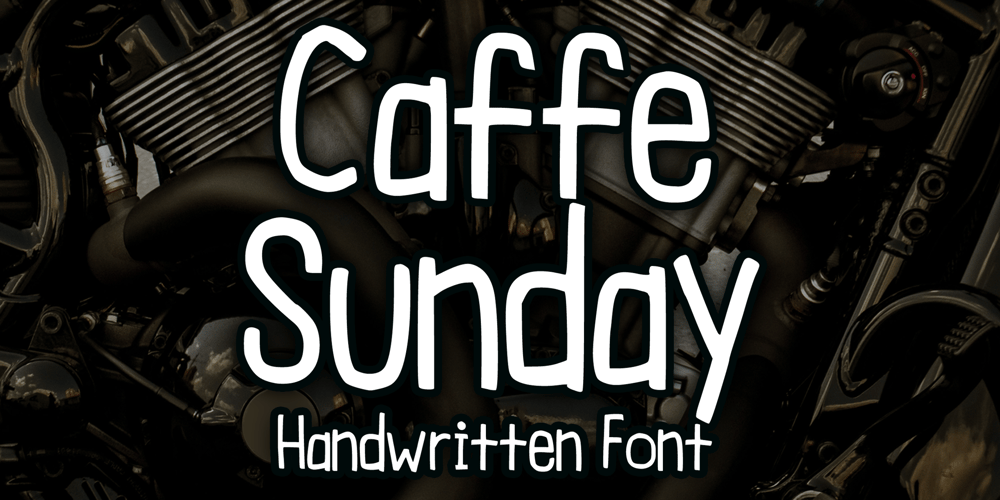
Caffe Sunday Font Family was designed by Gabriel Valentinus and published by Mvmet. Caffe Sunday contains 1 styles and family package options. Caffe Sunday is a casual and playful blackletter font. You can use it for anything ranging from t-shirts, book designs, and greeting cards to stickers and posters, packaging designs, or anything that needs a casual touch, it will be your perfect font to pick. Fall in love with its incredibly versatile style, and use it to create lovely designs!